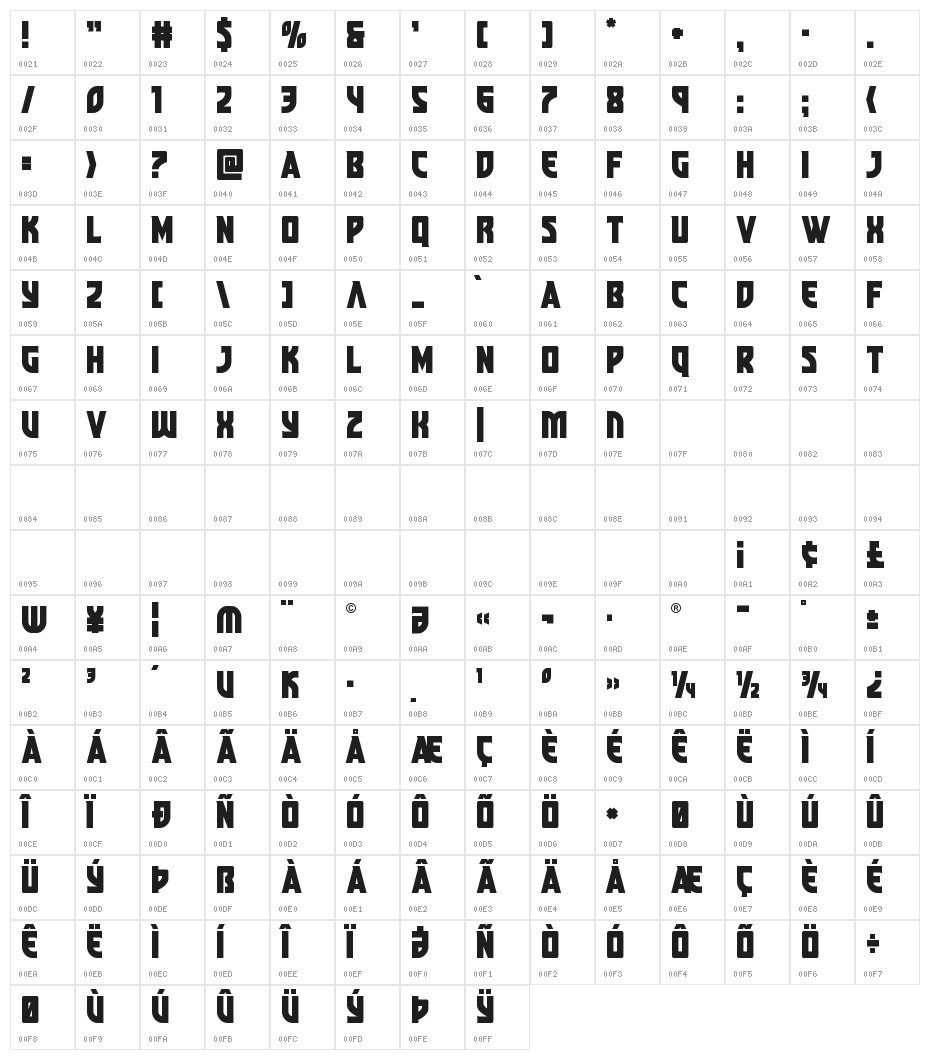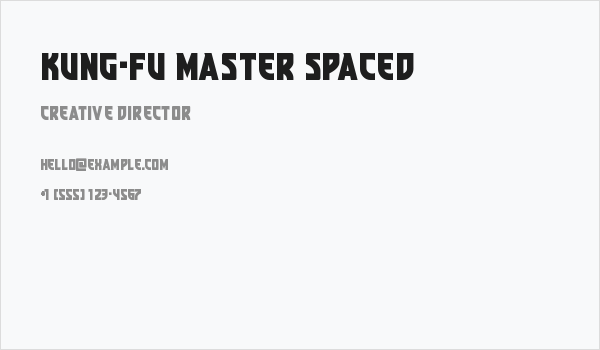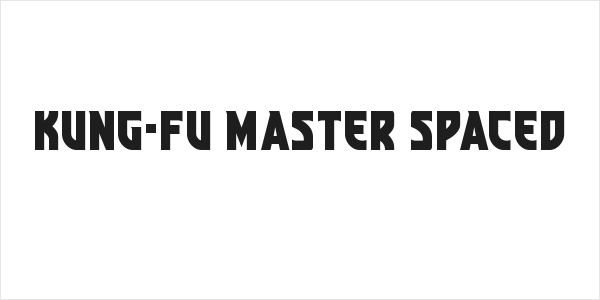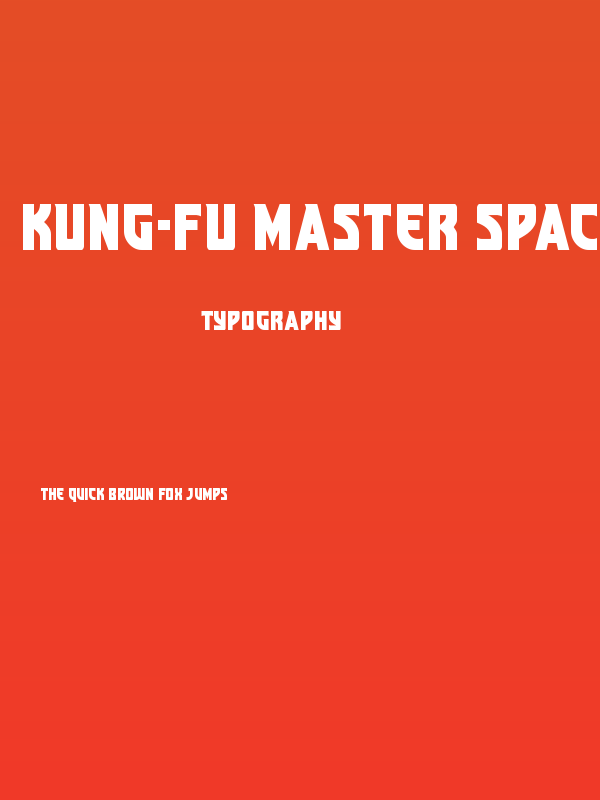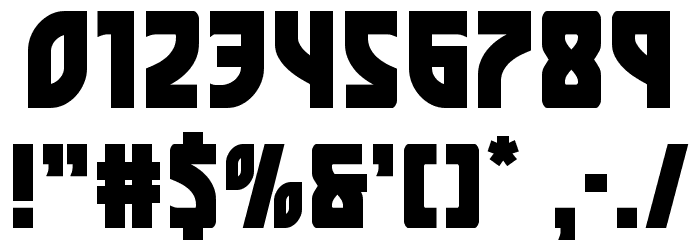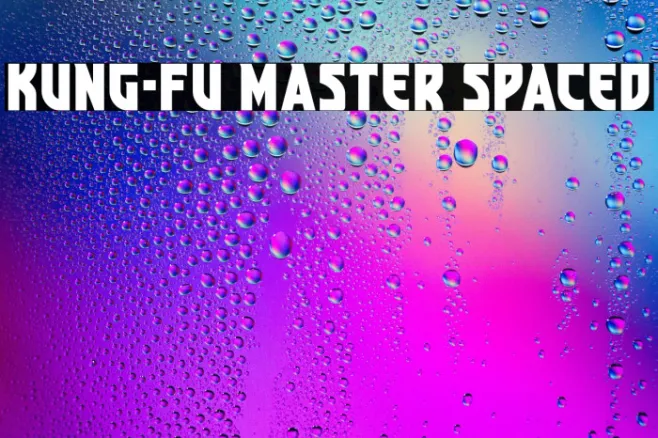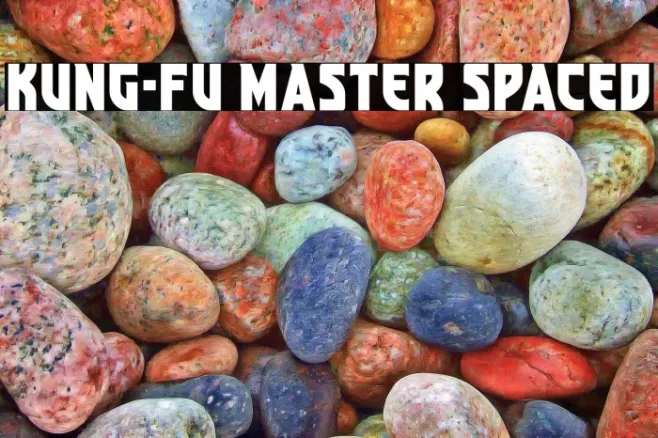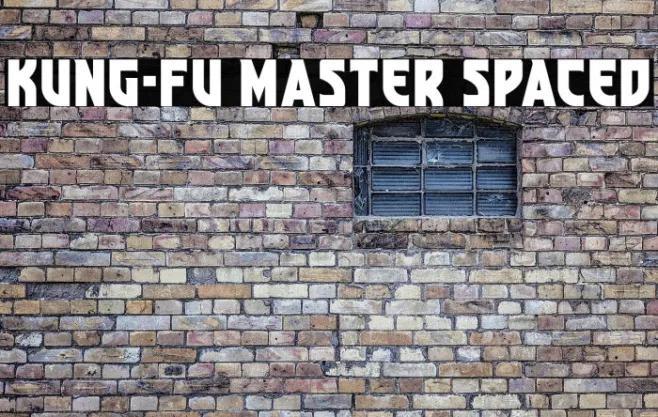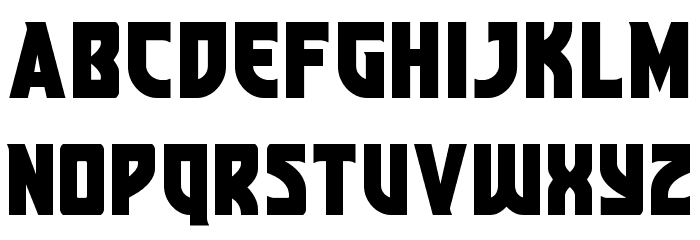
Kung-Fu Master Spaced Font
Kung-Fu Master Spaced Description
This font features a bold and striking design, characterized by its thick, blocky letters with sharp angles and a strong presence. The uppercase letters are uniform in height, creating a cohesive and powerful look. The numbers and special characters maintain the same boldness, ensuring consistency across all elements. The font's geometric shapes and solid structure make it ideal for projects that require a commanding and impactful visual style.
| Proposed Projects | Ideal for posters, headlines, branding, and any design that requires a bold statement. |